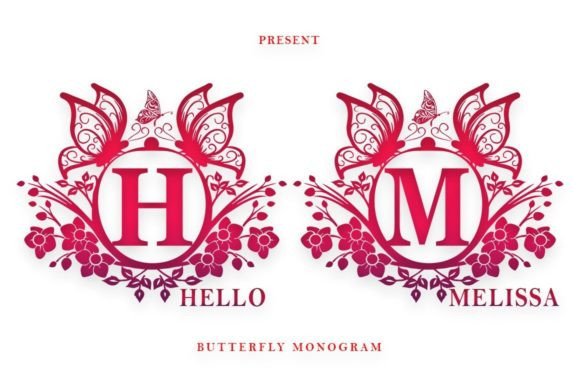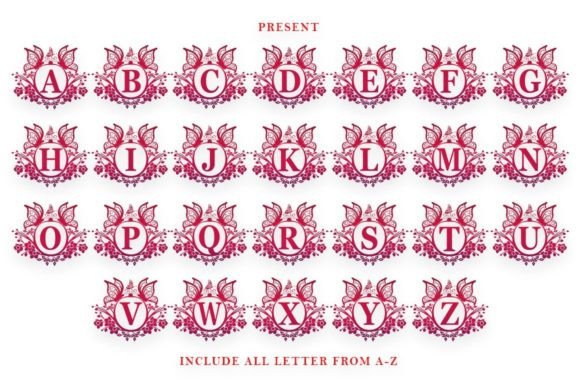
Creating Something Beautiful, One Letter at a Time
Have you ever been inspired by a single design element and suddenly found yourself swept up in a creative storm? For designers, this moment of inspiration can be a game-changer. For me, it was the discovery of the Butterfly Monogram Font – a charming, whimsical monogram decorative font that adds a touch of magic to any project.
Whether you’re crafting invitations, creating beautiful stationery, or designing eye-catching social media posts, the Butterfly Monogram Font is the perfect tool to help you create something truly special. Its authentic feel and delicate design make it a valuable addition to any designer’s toolkit, allowing you to add a personal touch to your work and stand out from the crowd.
- Unique Characteristics: The font features intricate, hand-drawn designs with a mix of elegant and whimsical elements, making it perfect for adding a touch of personality to designs.
- Monogram Support: The font is specifically designed for creating custom monograms, allowing users to easily create personalized designs with names or initials.
Butterfly Monogram Font Review
I recently had the chance to work with the Butterfly Monogram Font, and I must say it’s a unique and charming addition to any design project. ✨ The font’s whimsical feel and delicate details make it perfect for wedding invitations, baby announcements, or any other occasion that calls for a touch of elegance and sophistication.
Here are some of the things that I think work particularly well with this font:
- ✨ The intricate designs and patterns add a level of depth and visual interest to any text.
- ⚠️ The font can be quite busy, which may make it difficult to read at smaller sizes.
- ⚠️ The font is not suitable for all types of text, such as body copy or headings that require a clear, easy-to-read font.
Overall, I think the Butterfly Monogram Font is a great choice for designers who want to add a touch of whimsy and elegance to their projects. While it may not be suitable for all types of text, it’s a beautiful and unique font that can add a lot of visual interest to a design.